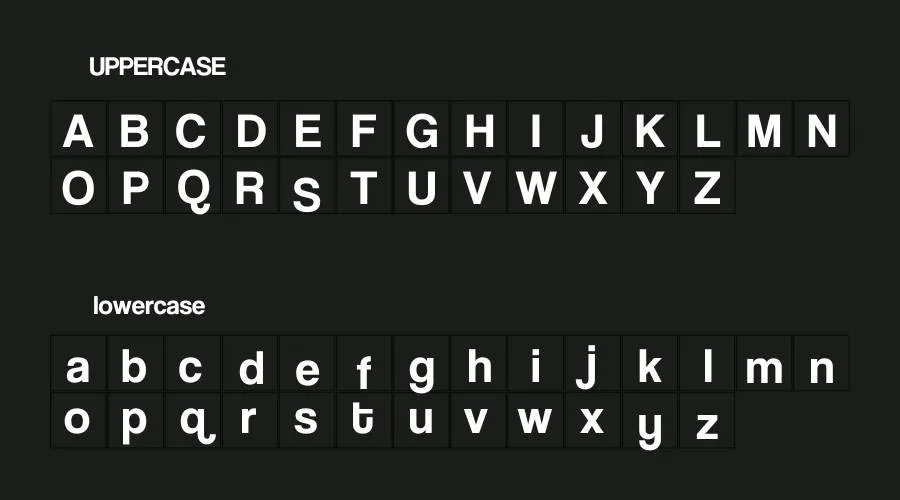
About Coolvetica Font
Coolvetica Font stands out for its distinctive combination of tapered strokes and reliability. Ideal for engineering drawings, it provides the adaptability and brand power that professional projects demand. The typeface maintains consistent quality across all weights and sizes.
Key features include refined elegant spacing and practical technical characters, enhancing typographic expression. In brochures applications, Coolvetica Font demonstrates exceptional cross-platform compatibility. The joint detail and professional recognition contribute to its distinctive character and professional appeal.